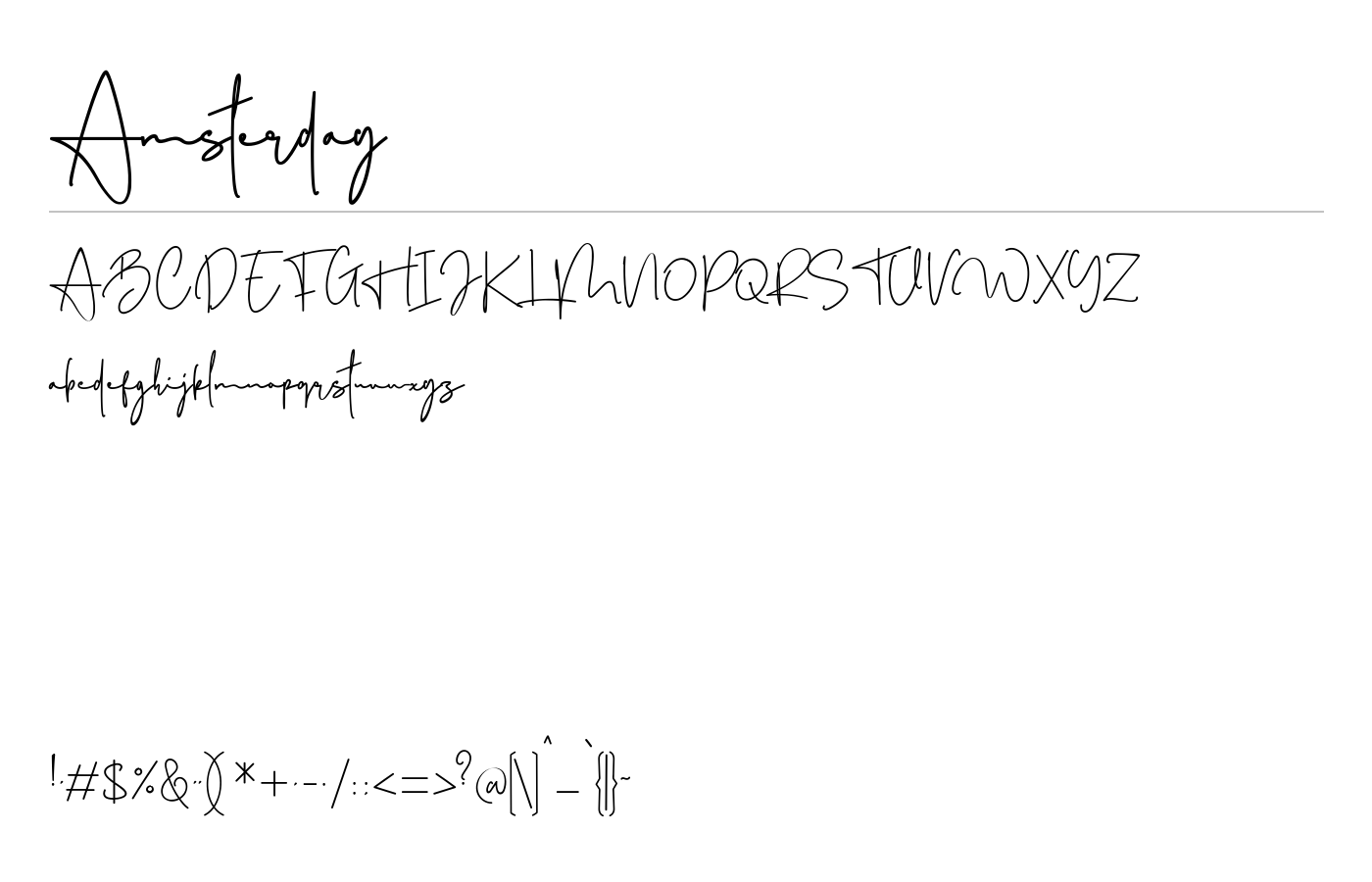
Amsterday is a delicate, handwritten script font with a narrow, elegant style that feels personal and modern. Its thin strokes and flowing, slightly irregular letterforms convey a casual yet sophisticated charm, making it ideal for invitations, branding, and creative projects that seek a refined but approachable look. This font works beautifully in contexts where a touch of individuality and elegance is desired, especially in logos, editorial headlines, and stylish packaging.
Amsterday Font
About Amsterday Font